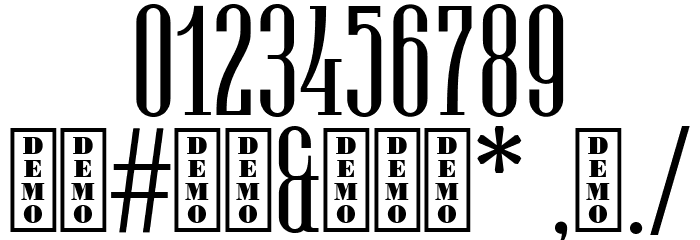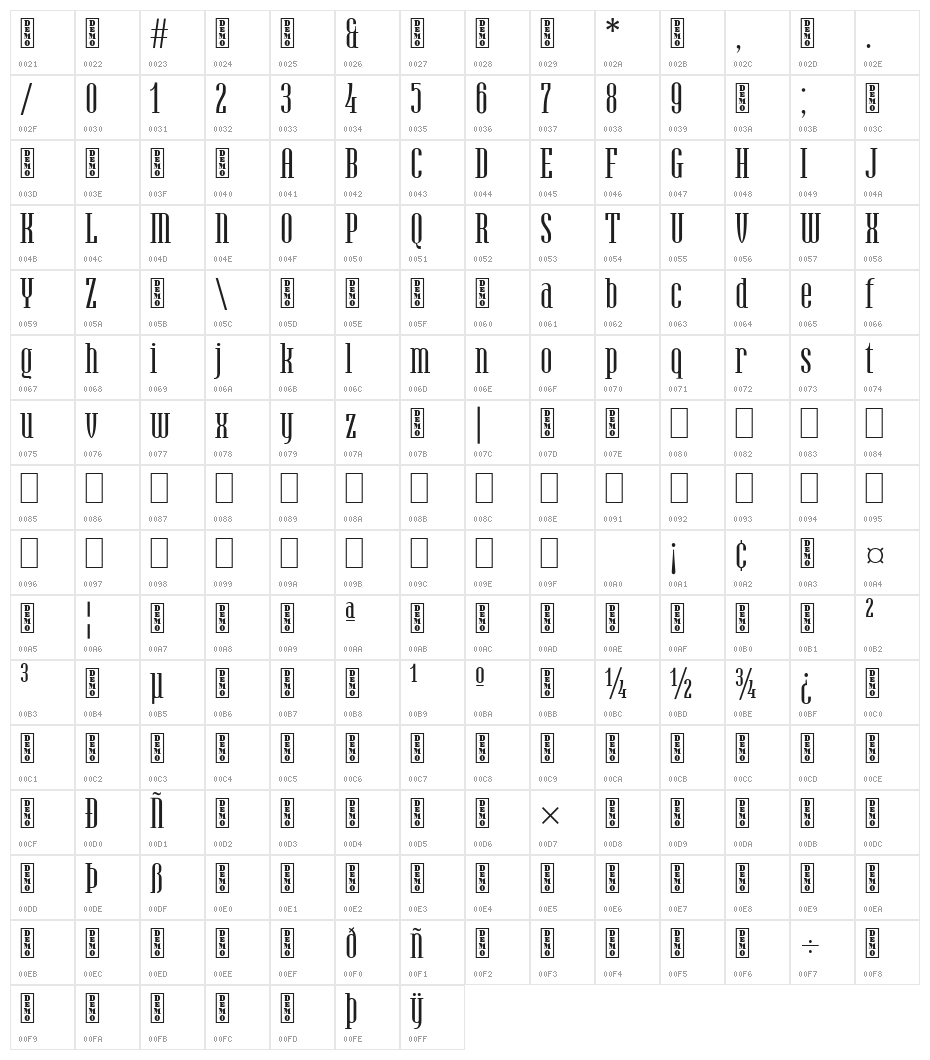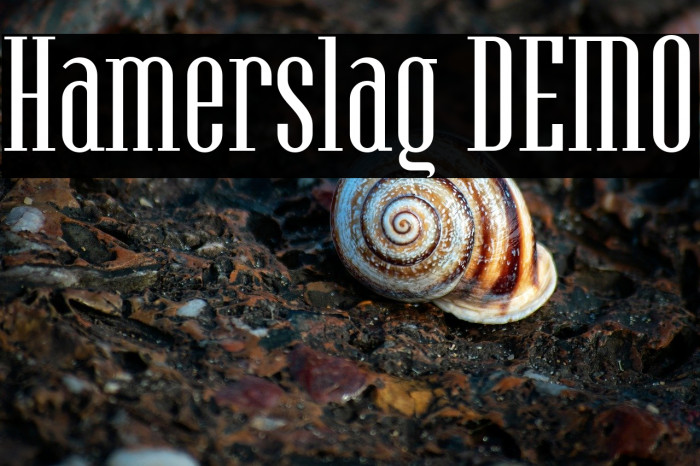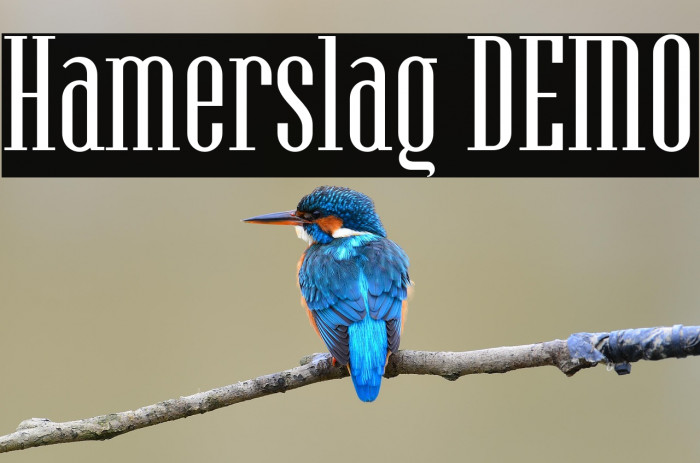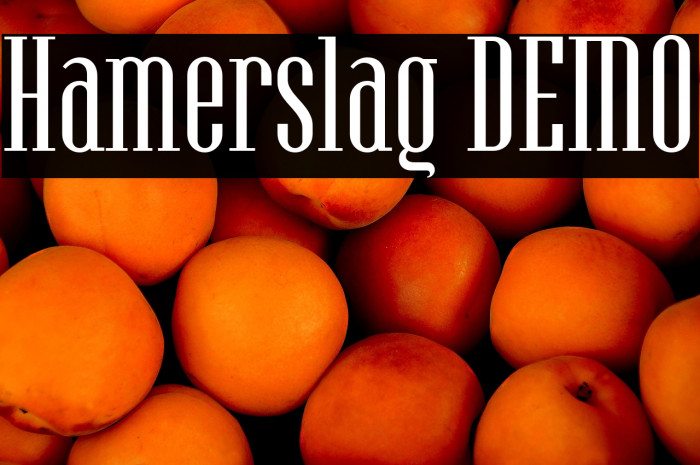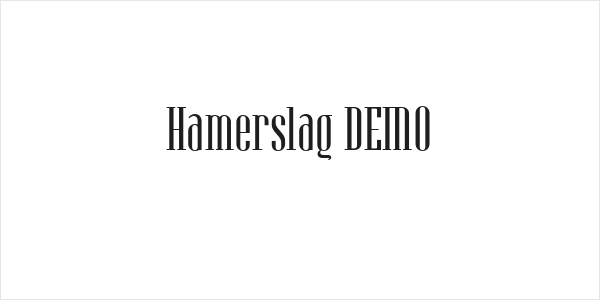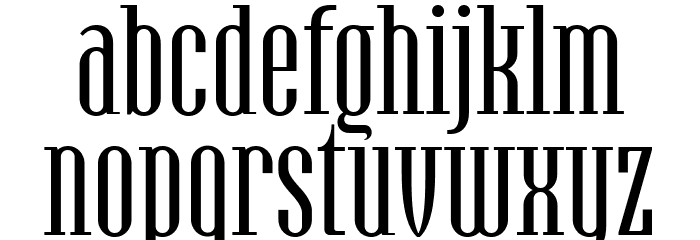
Hamerslag DEMO Font
Hamerslag DEMO Description
This font features a tall and narrow design with strong vertical emphasis, characterized by its elongated and slender letterforms. The strokes are consistent and uniform, creating a clean and structured appearance. The uppercase letters are particularly striking, with a commanding presence that draws attention. The lowercase letters maintain the same narrow proportions, ensuring a cohesive look across different text sizes. The numerals are distinct and easy to read, complementing the overall style. Special characters are designed with the same attention to detail, providing versatility for various design needs.